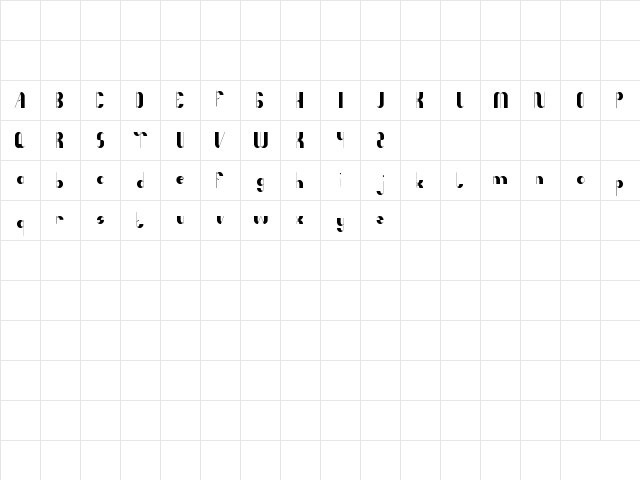
Anything Mean Everything Regular Free Font
Anything Mean Everything Regular
Design Context for Anything Mean Everything
Anything Mean Everything is a composed and adaptable typeface that performs quietly and consistently across a wide range of design contexts. Its slender proportions lend an understated elegance to any composition.